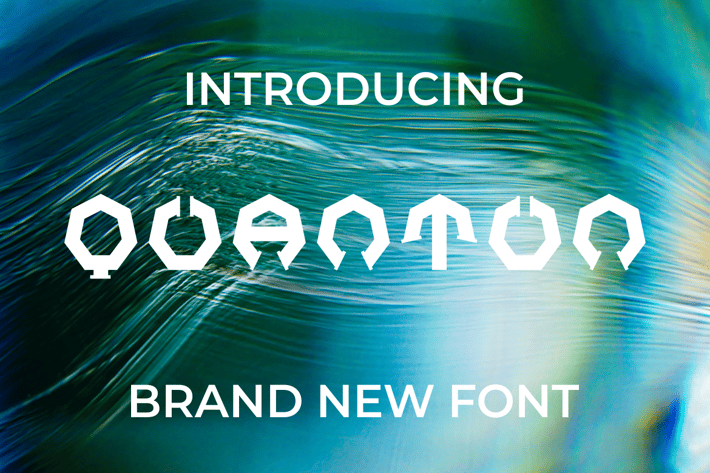
QUANTUN Font
Introducing our new product QUANTUN Font - Modern Font
QUANTUN Font - Modern Font is a bold and authentic display font. The font is suitable for any branding project like logo, t-shirt printing, esport, and many more. outstanding in a wide range of contexts.